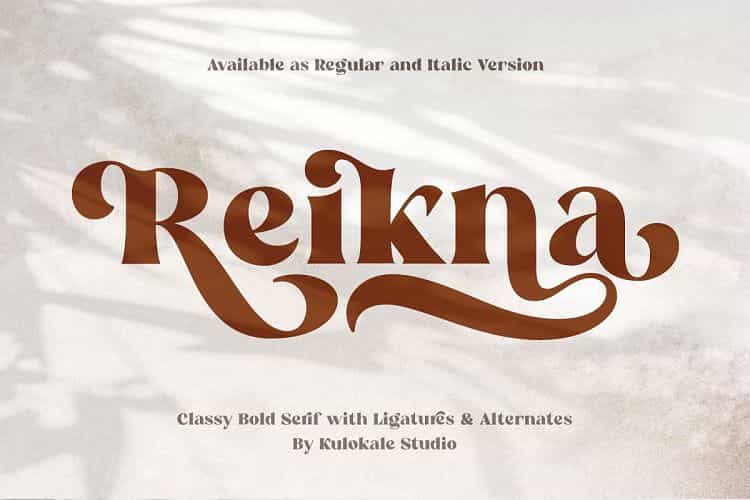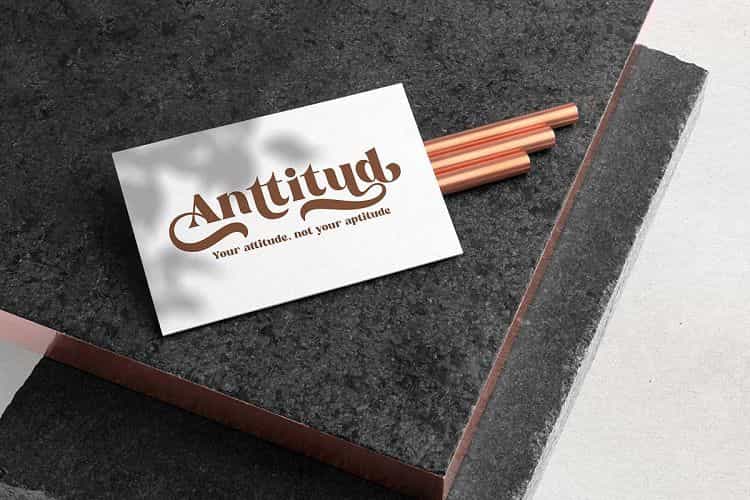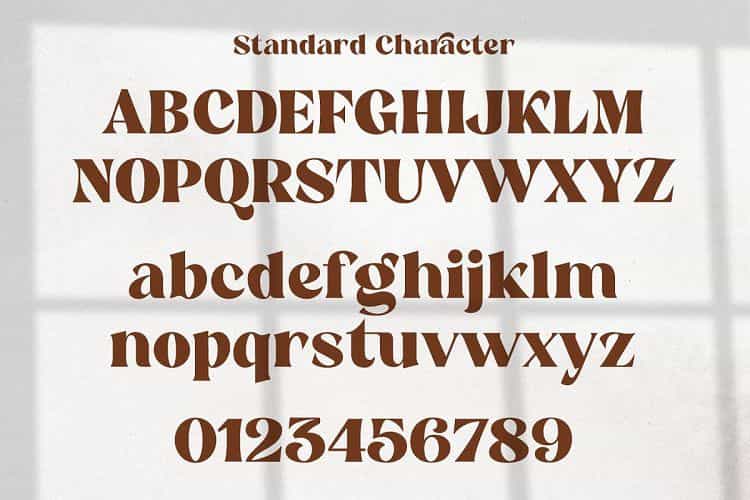
Reikna Classy Bold Serif Font
Reikna is a classy bold serif font with beautiful alternate characters and also ligature which allows you to easily create a logo for your personal branding and your business in an elegant way. Reikna is a great font for many of the projects that can be done with it such as logos & branding, invitation, stationery, wedding designs, social media posts, advertisements, printed quotes product packaging ,product design label photography watermark special events or anything.